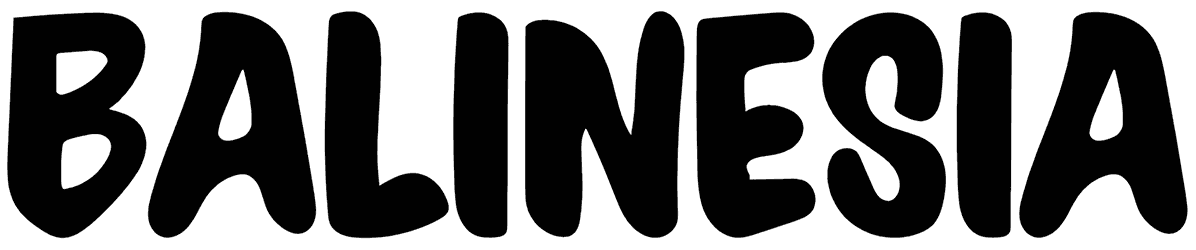
Balinesia Font
Bring a playful vibe to your text designs and make an ineffable layout by using this cartoon font. You can apply it to programs, books, stationery products, and so many more. Download Balinesia font without further delay, and in case you need similar fonts, you can scroll up to our vast library.